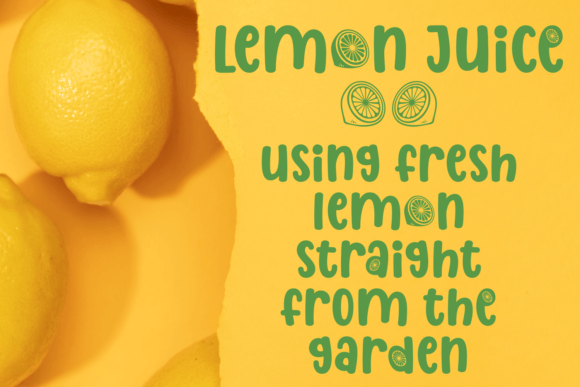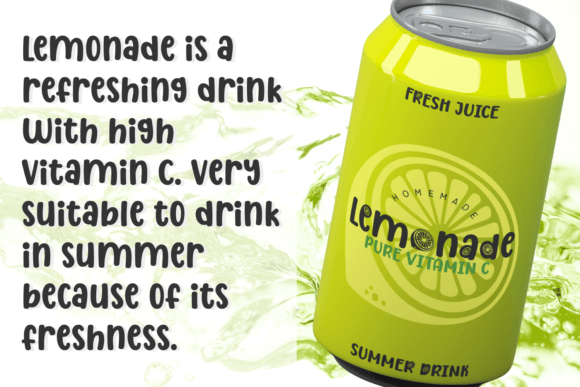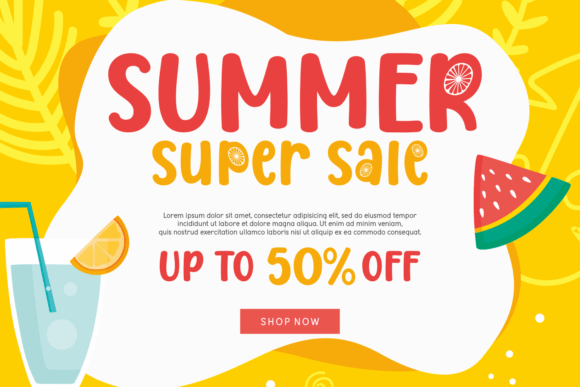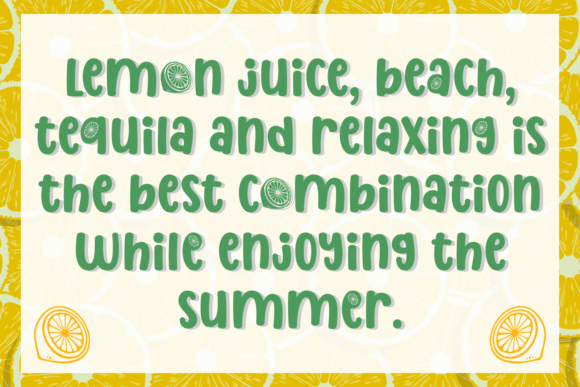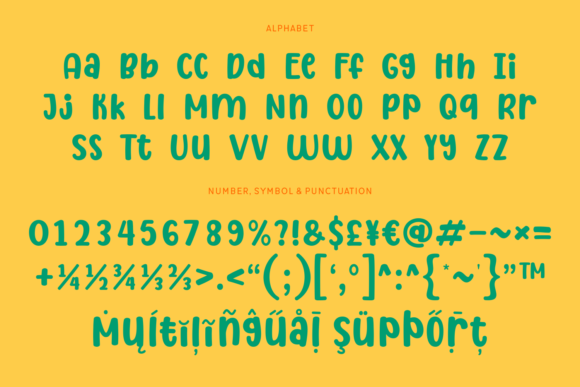
The Double Lemon Font: A Playful and Stylish Addition to Your Design Toolkit
I’ll never forget the time I was working on a branding project for a trendy new cafe, and I just couldn’t seem to find the right font. The client wanted something youthful and playful, but still professional and sophisticated. That’s when I stumbled upon the Double Lemon font, and it was love at first sight! ✨
Double Lemon is a font that exudes a carefree spirit, making it perfect for designs that need a bit of whimsy. But don’t let its playful nature fool you – it’s also incredibly versatile and can be used for a wide range of projects, from professional branding designs to casual social media posts.
An Honest Review of Double Lemon
- ✨ Unique and eye-catching letterforms that add a touch of personality to any design
- ✅ Extensive character set, including support for multiple languages
- ✅ Beautifully crafted OpenType features, including stylistic alternates and glyphs
While Double Lemon is an amazing font, there are a few things to keep in mind: 🤔
- ⚠️ Some of the more decorative features may not work well at very small font sizes
- ⚠️ Limited availability of condensed or italic versions (but the regular version is still super versatile!)
The Story Behind Double Lemon
Double Lemon was designed by a talented type designer who wanted to create a font that captured the carefree spirit of summer. With its bright, cheerful letterforms and extensive character set, Double Lemon is the perfect font for designers who want to add a bit of fun and personality to their work.
| Font Name | Double Lemon Font |
| Author | Dani (7NTypes) |
Q: What type of projects is Double Lemon best suited for?
A: Double Lemon is a versatile font that can be used for a wide range of projects, from professional branding designs and labels to casual social media posts and party invitations.
Q: Does Double Lemon support multiple languages?
A: Yes, Double Lemon has an extensive character set that supports multiple languages, making it a great choice for international designs.
Q: Is Double Lemon available in different weights or styles?
A: While Double Lemon doesn’t have a huge range of weights or styles, the regular version is still super versatile and can be used for a wide range of designs. You can also experiment with different font sizes, colors, and effects to create different looks.